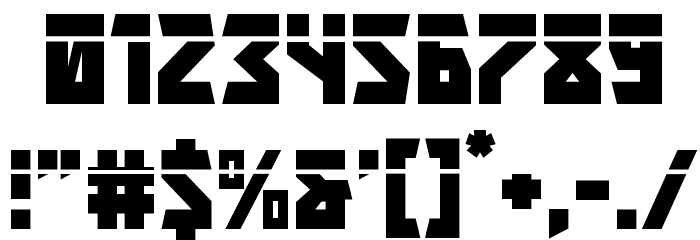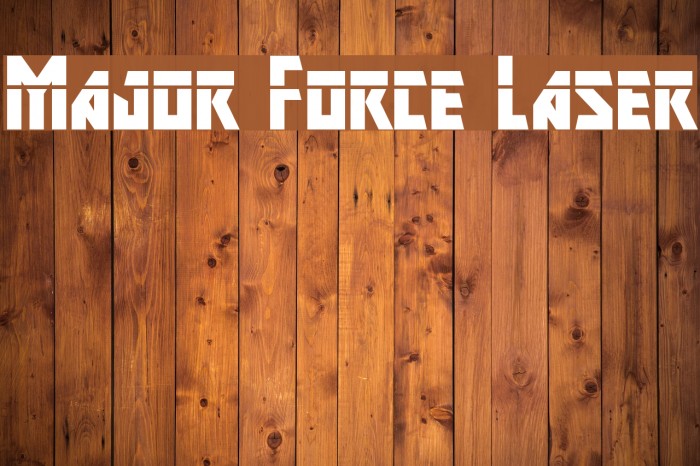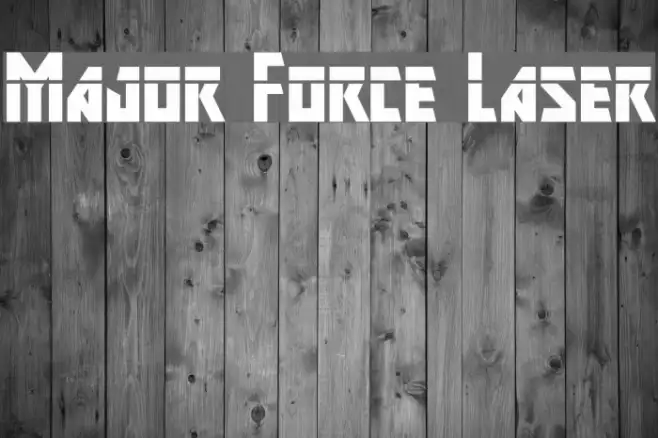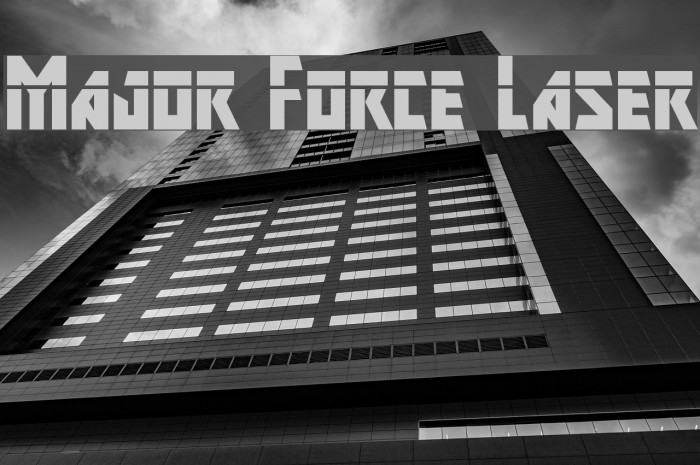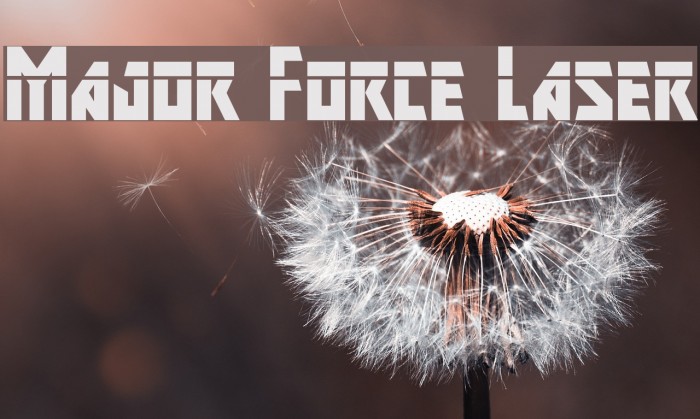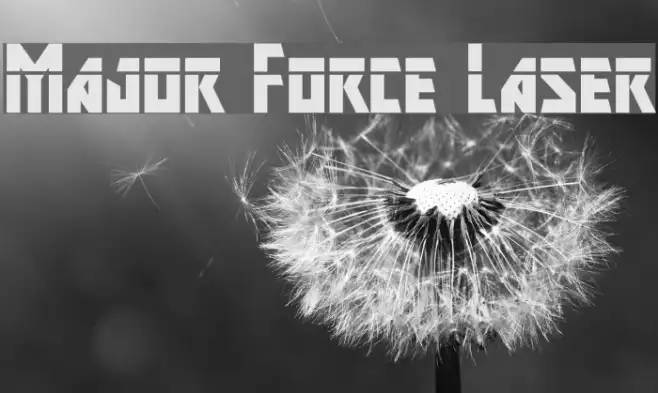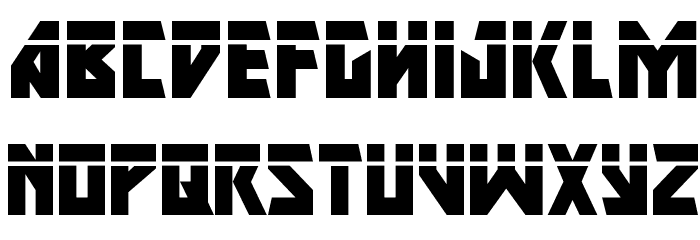
Major Force Laser Font
This font features a bold, geometric design with sharp angles and a futuristic aesthetic. The characters are constructed with thick, solid lines, creating a strong visual impact. Each letter and number is distinct, with a unique angular cut that adds to the overall dynamic appearance. The uppercase and lowercase letters maintain a consistent style, emphasizing the font's cohesive design. The special characters are equally bold, integrating seamlessly with the rest of the set. This font is ideal for projects that require a modern, edgy look.
• Proposed Projects: Ideal for sci-fi themed posters, video game titles, technology branding, and futuristic event flyers.
• Category: Decorative/Display
• Overall Style: Futuristic
• Use Case: Headlines, Logos